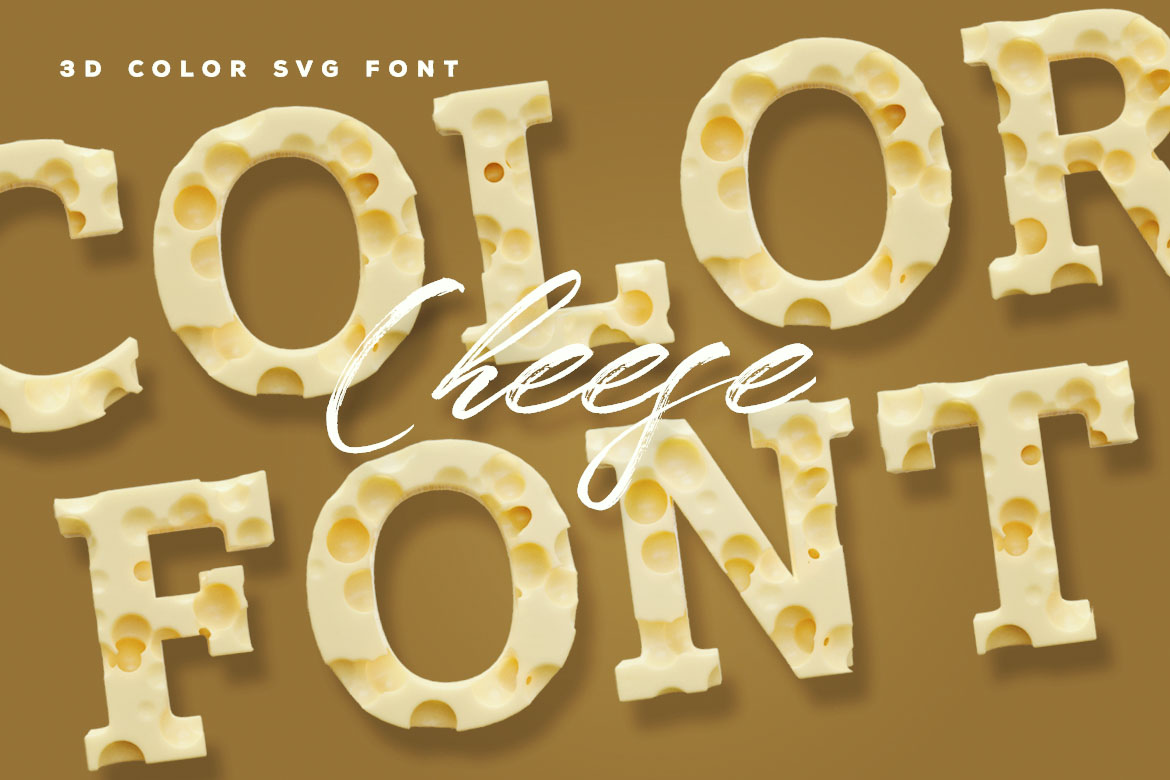
Cheese 3D Color SVG Font
Cheese 3D Color SVG Font is perfect for dairy branding, cheese shop signage, delicatessen logos, gourmet food packaging, restaurant menus, artisanal cheese labels, food festival graphics, and playful culinary marketing materials.
Cheese 3D Color SVG Font is exciting because it delivers authentic dairy appeal with innovative 3D color technology that creates realistic cheese textures and dimensional effects. Its appetizing character evokes immediate cravings for artisanal cheese experiences and gourmet dairy products that perfectly capture the rich, creamy essence of quality cheese craftsmanship.
Cheese 3D Color SVG Font family includes full-color 3D variations with cheese-inspired textures and dairy decorative elements, providing designers with comprehensive options for creating delicious typography solutions that project artisanal quality and gourmet authenticity.
Creative professionals consistently choose Cheese 3D Color SVG Font for projects requiring culinary authenticity and gourmet food appeal. Its appetizing character works magnificently in cheese boutiques, gourmet markets, artisanal food packaging, and dairy product branding where visual temptation and authentic presentation drive customer desire. The font's 3D nature creates memorable brand experiences that celebrate the rich tradition of cheese making and dairy excellence.
Design teams appreciate Cheese 3D Color SVG Font's ability to communicate artisanal excellence and gourmet sophistication in competitive food markets. Its appetizing styling transcends traditional food typography while maintaining the delicious appeal required for dairy positioning, making it an essential tool for organizations seeking to establish irresistible connections through superior cheese typography and exceptional culinary communication.